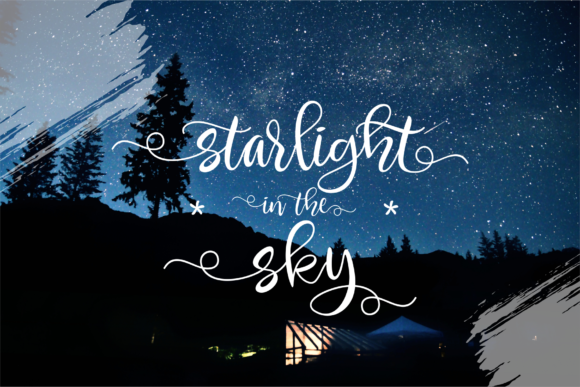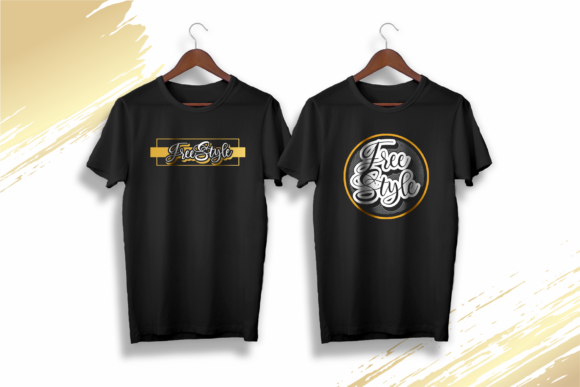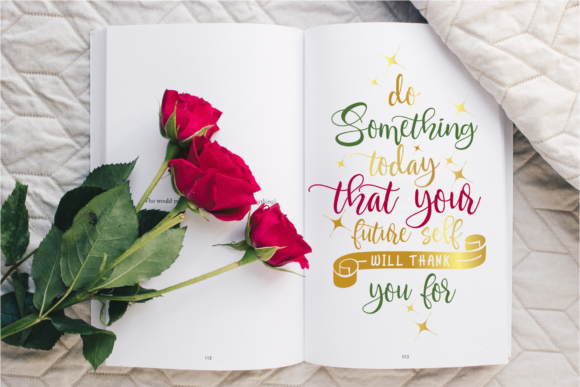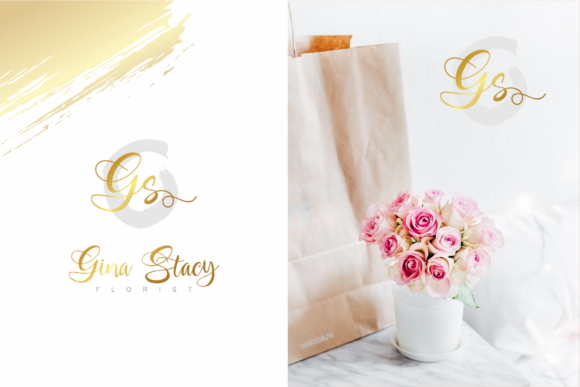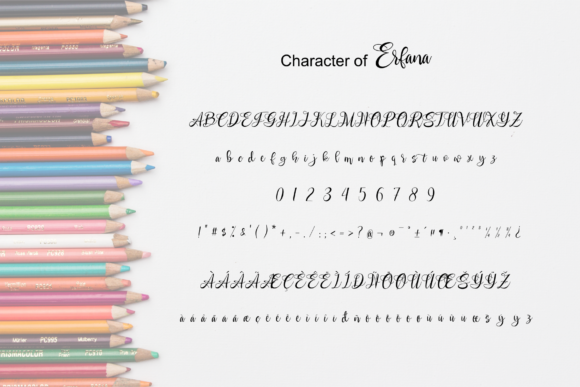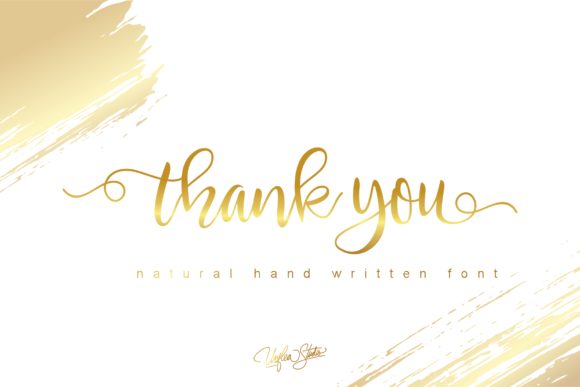
Erfana Font: A Timeless Script Font with a Bold Vibe
Are you a designer or crafter looking for a font that exudes elegance and sophistication? Look no further than Erfana Font, a classic and beautiful script font that is sure to inspire your next creative project. With its unique style and bold vibe, Erfana Font is the perfect choice for those who want to add a touch of luxury and refinement to their designs.
What is Erfana Font?
Erfana Font is a script font that features flowing, connected letters that give it a sense of movement and fluidity. The font is designed to resemble traditional calligraphy, with each letter carefully crafted to create a sense of harmony and balance. The result is a font that is both elegant and eye-catching, making it perfect for a wide range of design applications.
Key Features of Erfana Font
So, what sets Erfana Font apart from other script fonts? Here are just a few of its key features:
- Unique letterforms: Each letter in Erfana Font has been carefully designed to create a sense of flow and continuity. The result is a font that is both beautiful and highly legible.
- Bold vibe: Erfana Font has a bold, confident vibe that makes it perfect for headlines, titles, and other design elements where you want to make a statement.
- Classic style: Despite its bold vibe, Erfana Font has a classic, timeless quality that makes it suitable for a wide range of design applications, from traditional to modern.
- Highly versatile: Erfana Font can be used for everything from wedding invitations and stationery to branding and advertising.
How to Use Erfana Font
Erfana Font is a highly versatile font that can be used in a wide range of design applications. Here are just a few ideas to get you started:
- Wedding invitations and stationery: Erfana Font is perfect for wedding invitations, save-the-date cards, and other stationery where you want to create a sense of luxury and romance.
- Branding and advertising: Use Erfana Font to create bold, eye-catching headlines and titles for your brand or advertising campaign.
- Signage and display: Erfana Font is perfect for signage and display applications where you want to make a statement and grab attention.
- Packaging and labels: Use Erfana Font to add a touch of elegance and sophistication to your packaging and labels.
Tips for Working with Erfana Font
Here are a few tips to help you get the most out of Erfana Font:
- Use it sparingly: Erfana Font is a bold, attention-grabbing font, so use it sparingly to avoid overwhelming your design.
- Pair it with a simple font: Pair Erfana Font with a simple, sans-serif font to create a striking contrast and add visual interest to your design.
- Experiment with colors: Erfana Font looks great in a range of colors, from rich jewel tones to metallic finishes. Experiment with different colors to find the perfect look for your design.